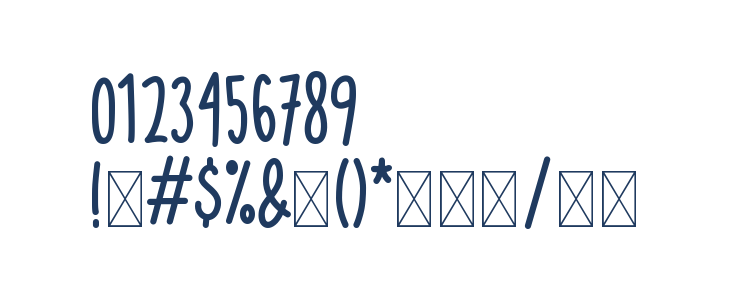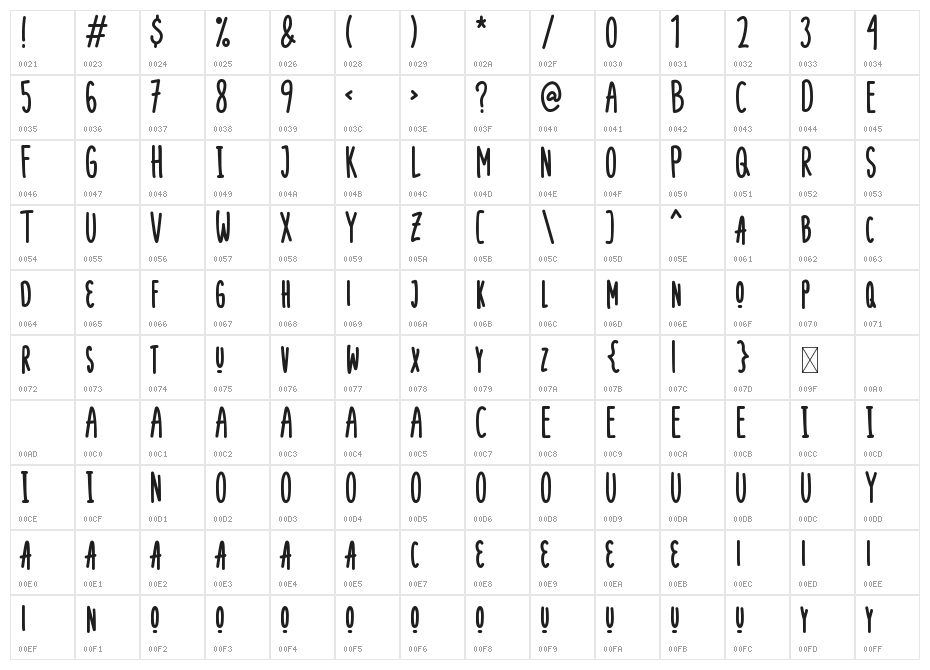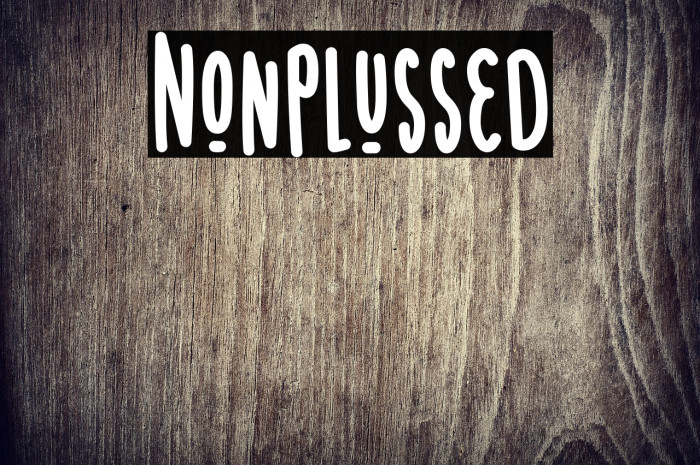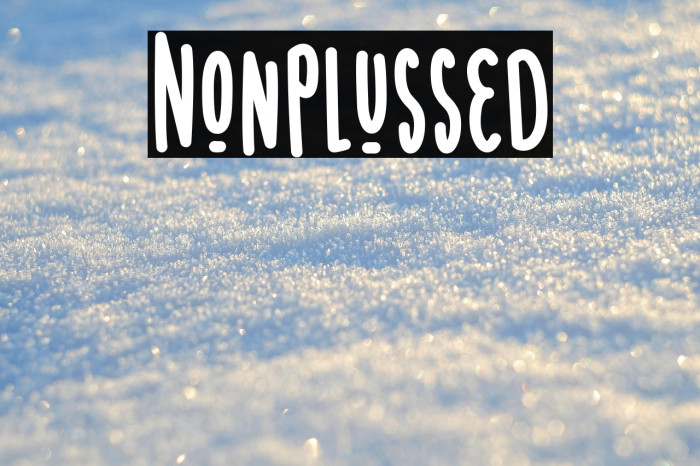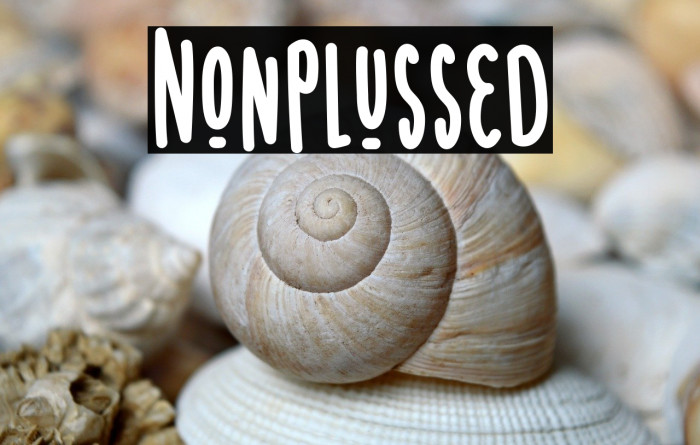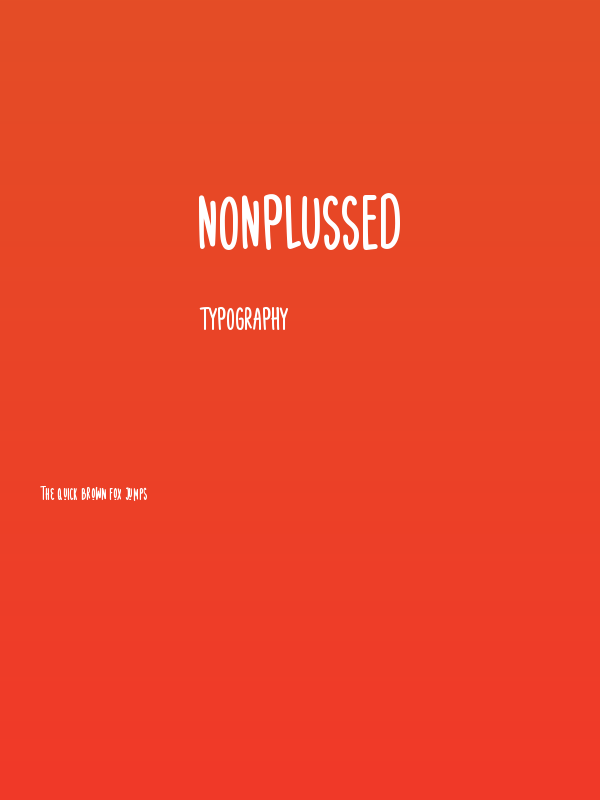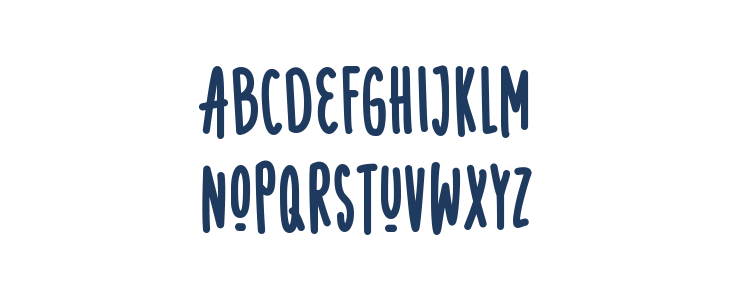
Nonplussed Font
Nonplussed Description
This font features a playful and bold handwritten style, characterized by its tall, narrow letters with rounded edges. The uppercase and lowercase letters maintain a consistent height, giving the font a uniform appearance. The numbers and special characters are designed to match the whimsical and informal style of the alphabet, making it suitable for creative and casual applications. The strokes are consistent in thickness, providing a balanced look that is easy to read while still maintaining a fun and lively aesthetic.
| Width | Condensed |
| Overall Style | Playful |
| Proposed Projects | Ideal for children's books, greeting cards, posters, and playful branding projects. |